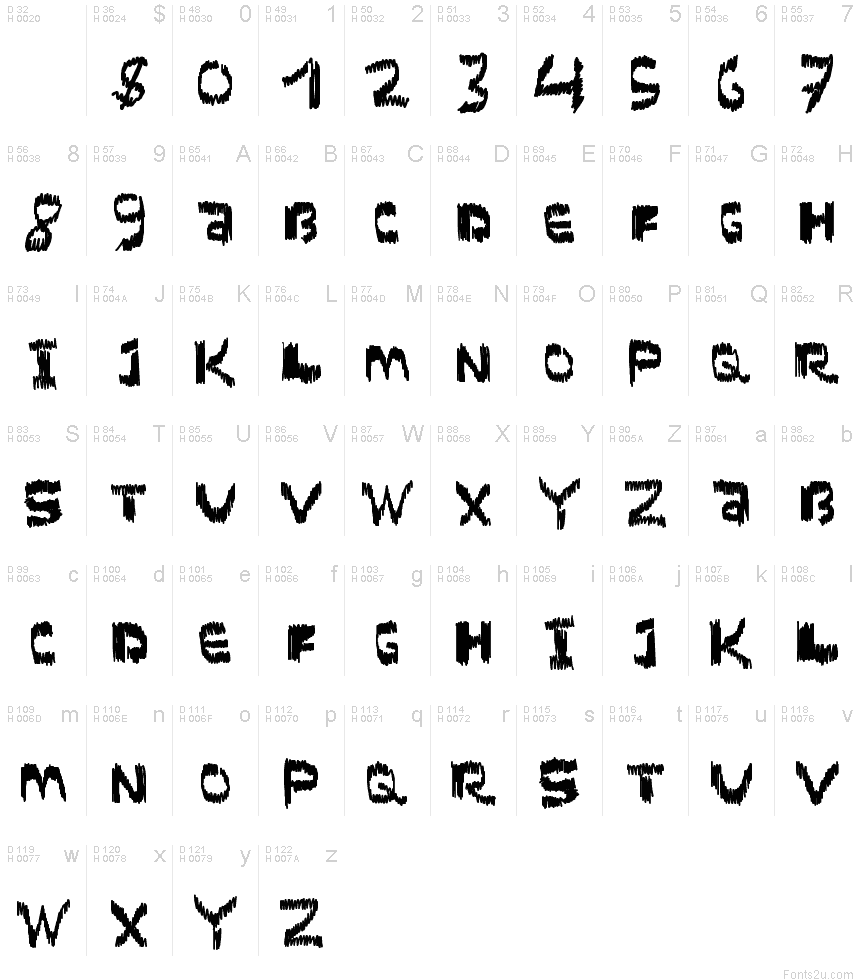
Scratch Times from Xerographer Fonts is a free trash-style script font with the raw look of lettering dragged repeatedly across the page. Its letters buckle and stretch, with dense scribbled strokes, blunt joins, and sudden shifts from cramped marks to broad, open shapes.
It is most convincing on music posters, where the nervous linework can turn a band name into part of the artwork, and that same abrasive texture suits album covers, skate merchandise, and underground event graphics. Against torn-paper collage, photocopied photos, or marker drawings, the repeated strokes echo the rough image-making process instead of reading like clean digital type.